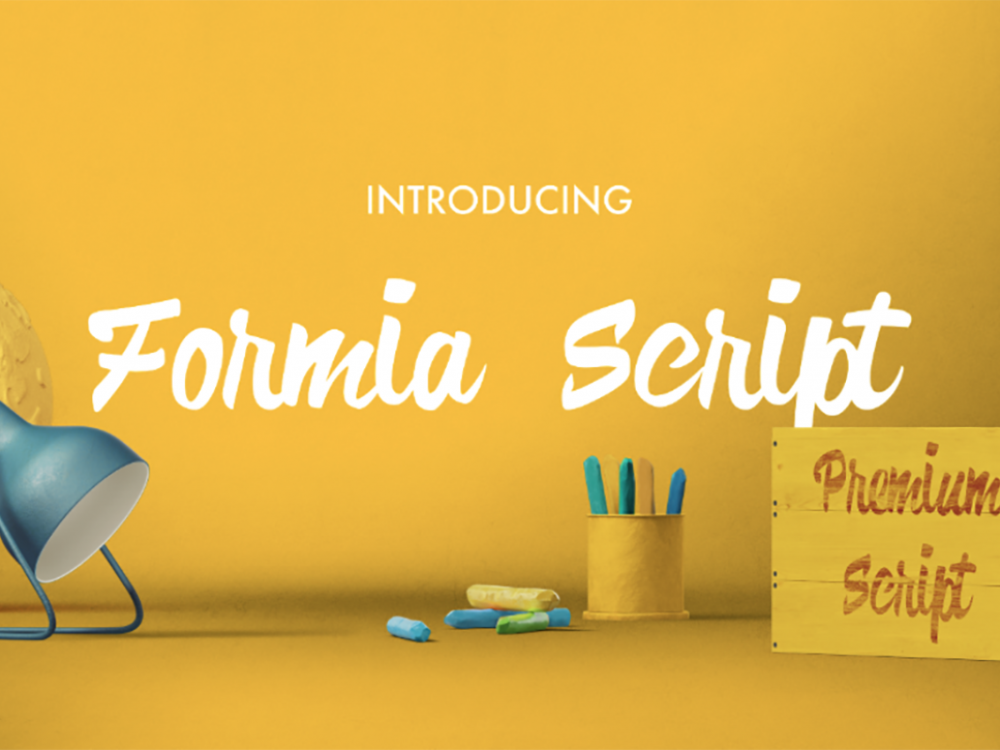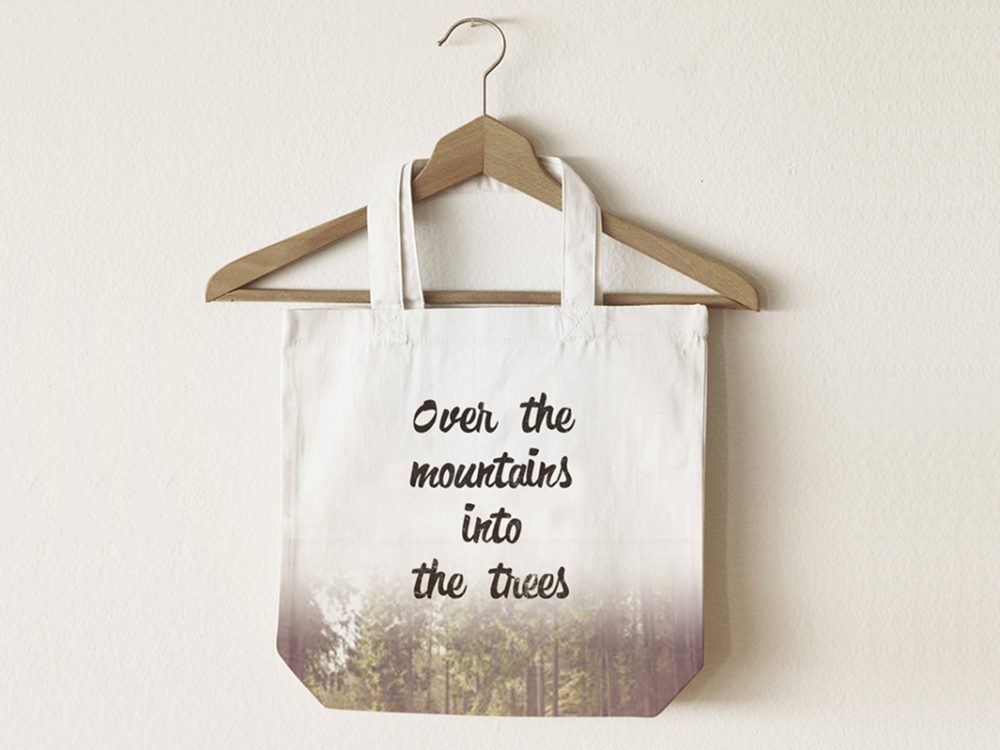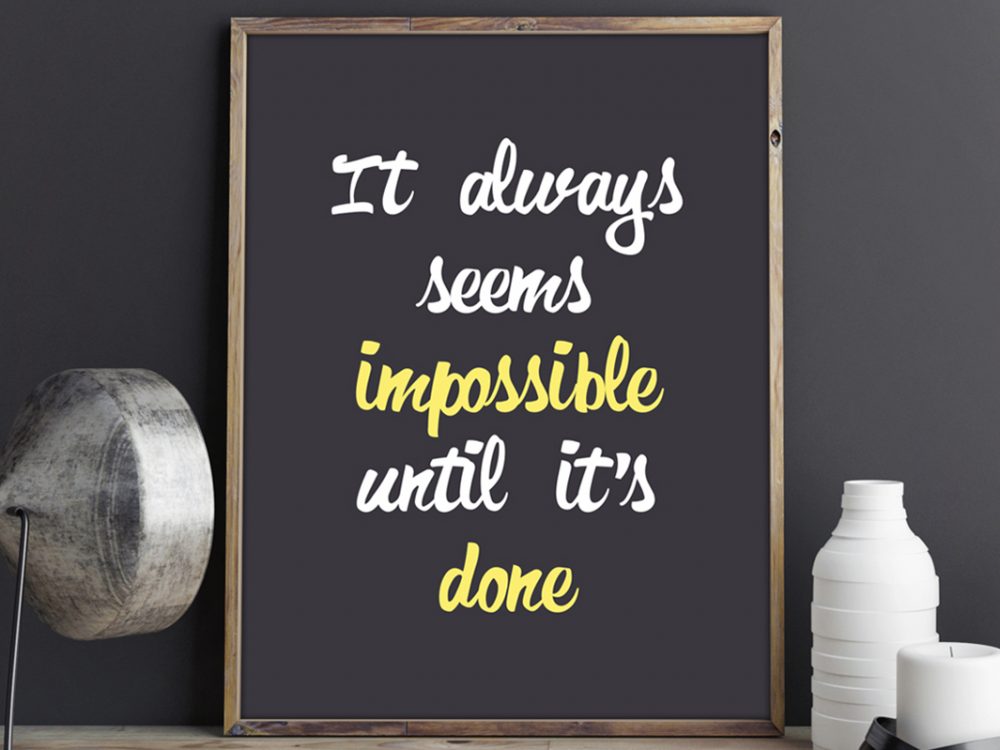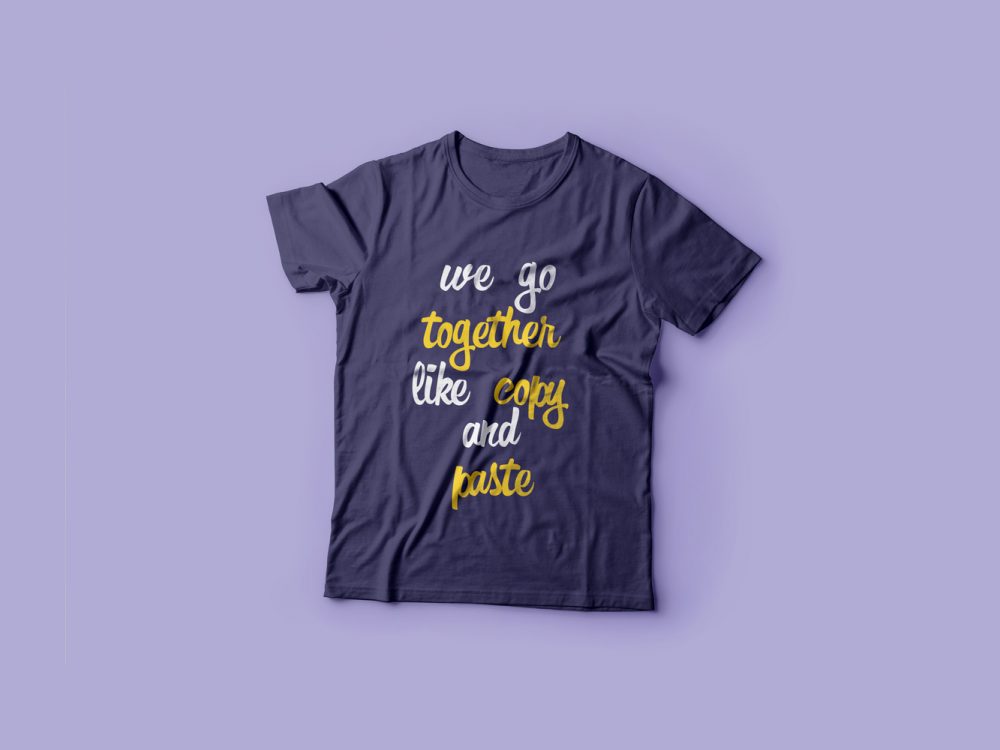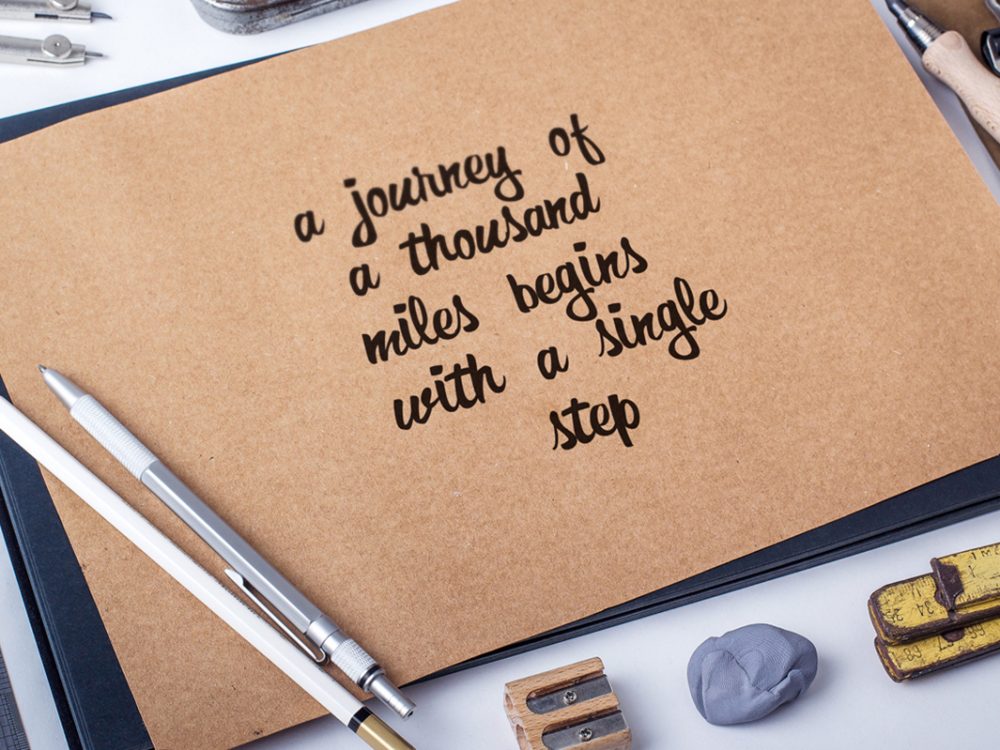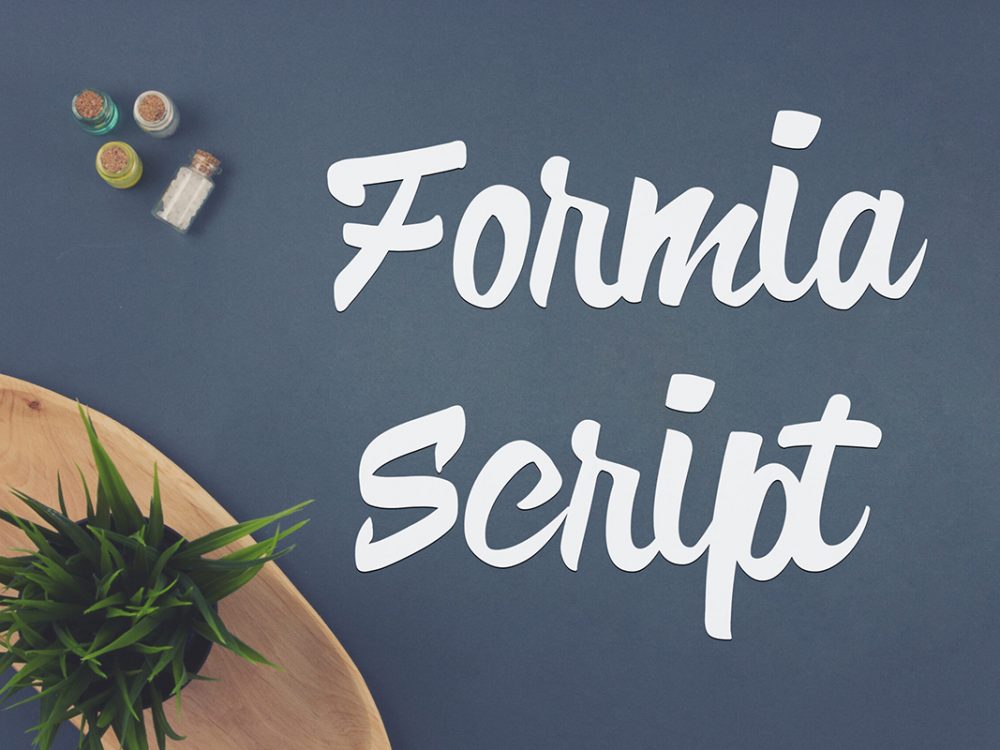
Formia Script Free Font
If you are looking for an interesting handwritten font for your design projects then Formia Script Free Font is perfect for you. This script font has a soft, elegant style and is perfect for posters, postcards, and more.